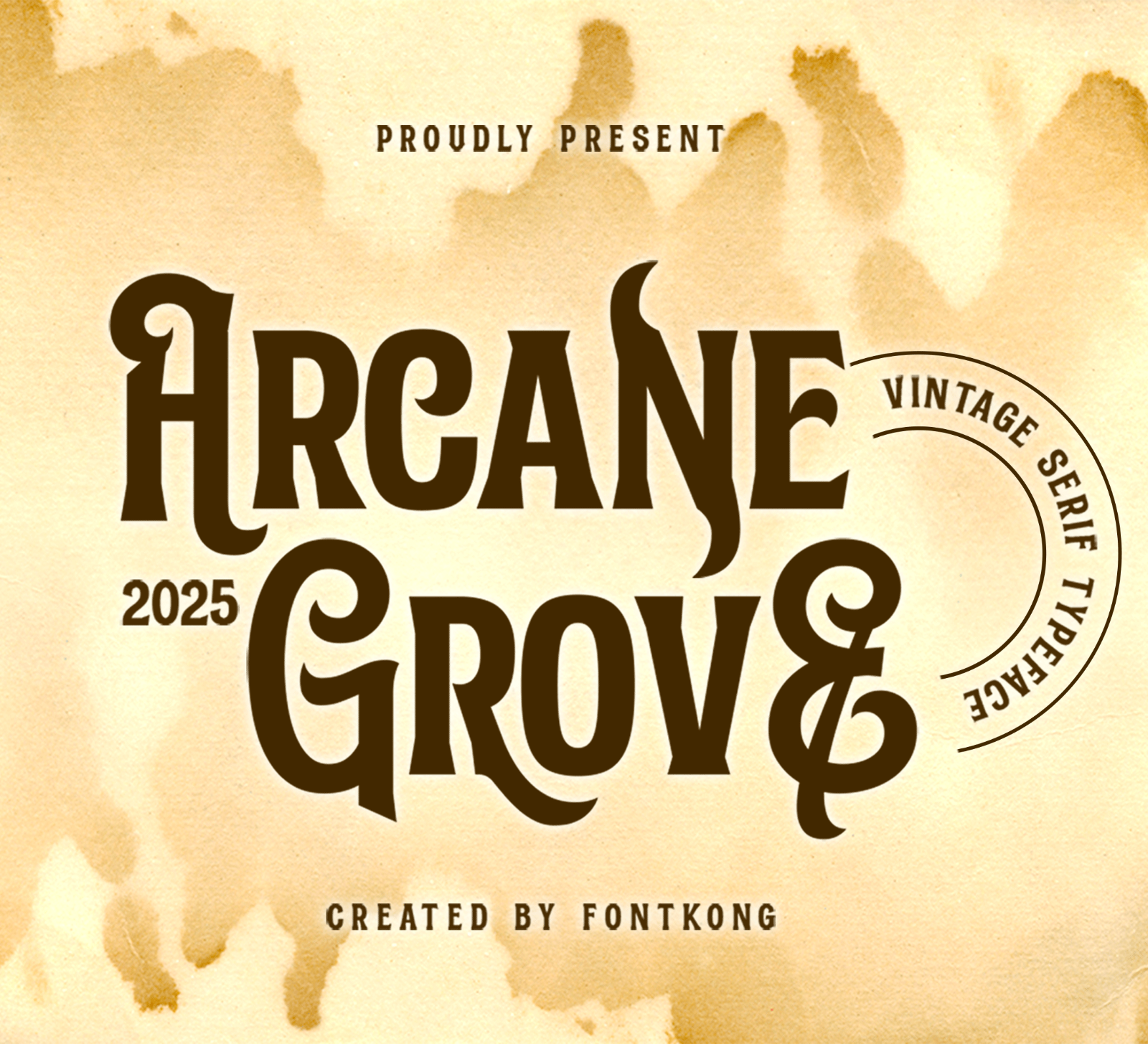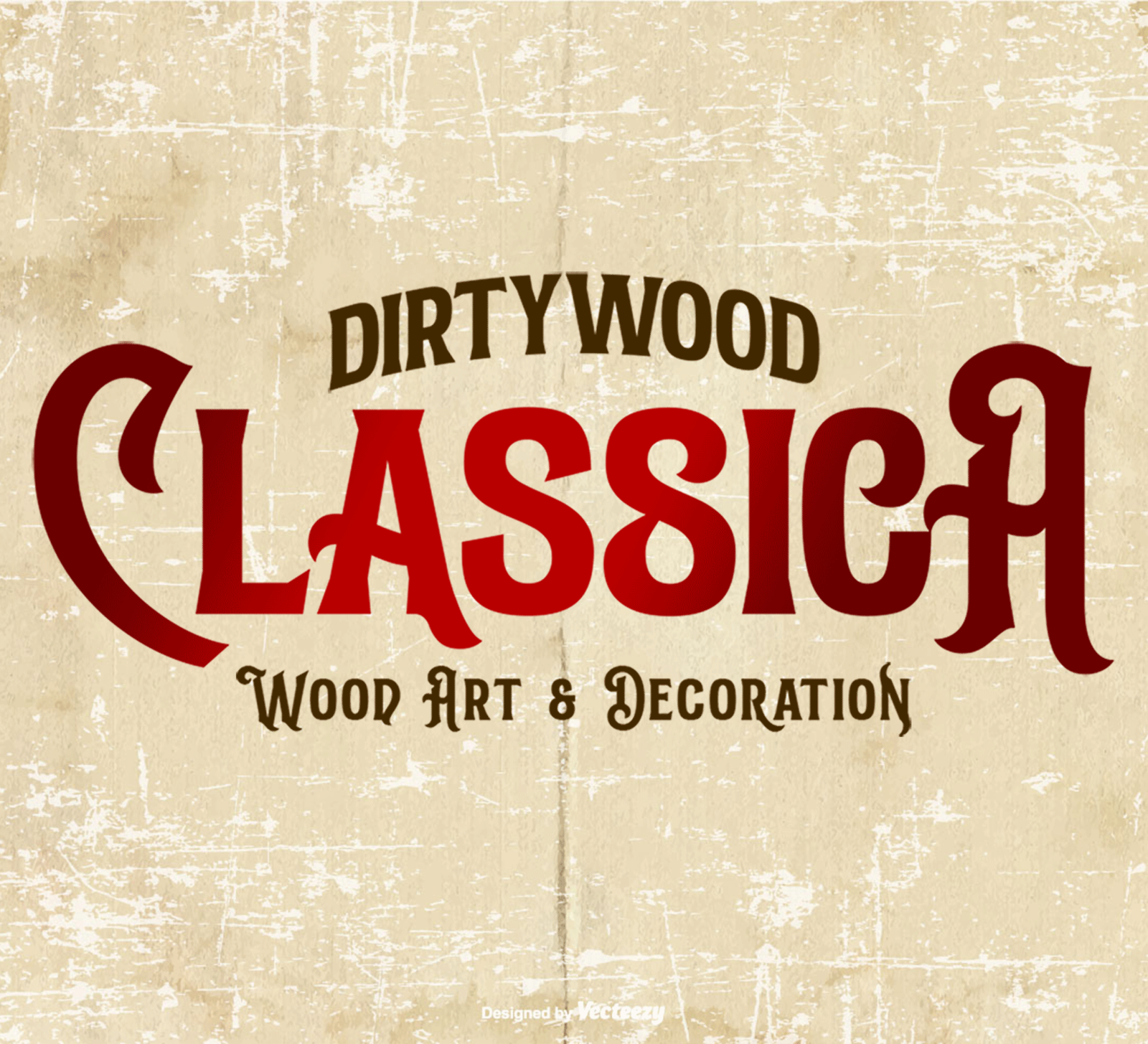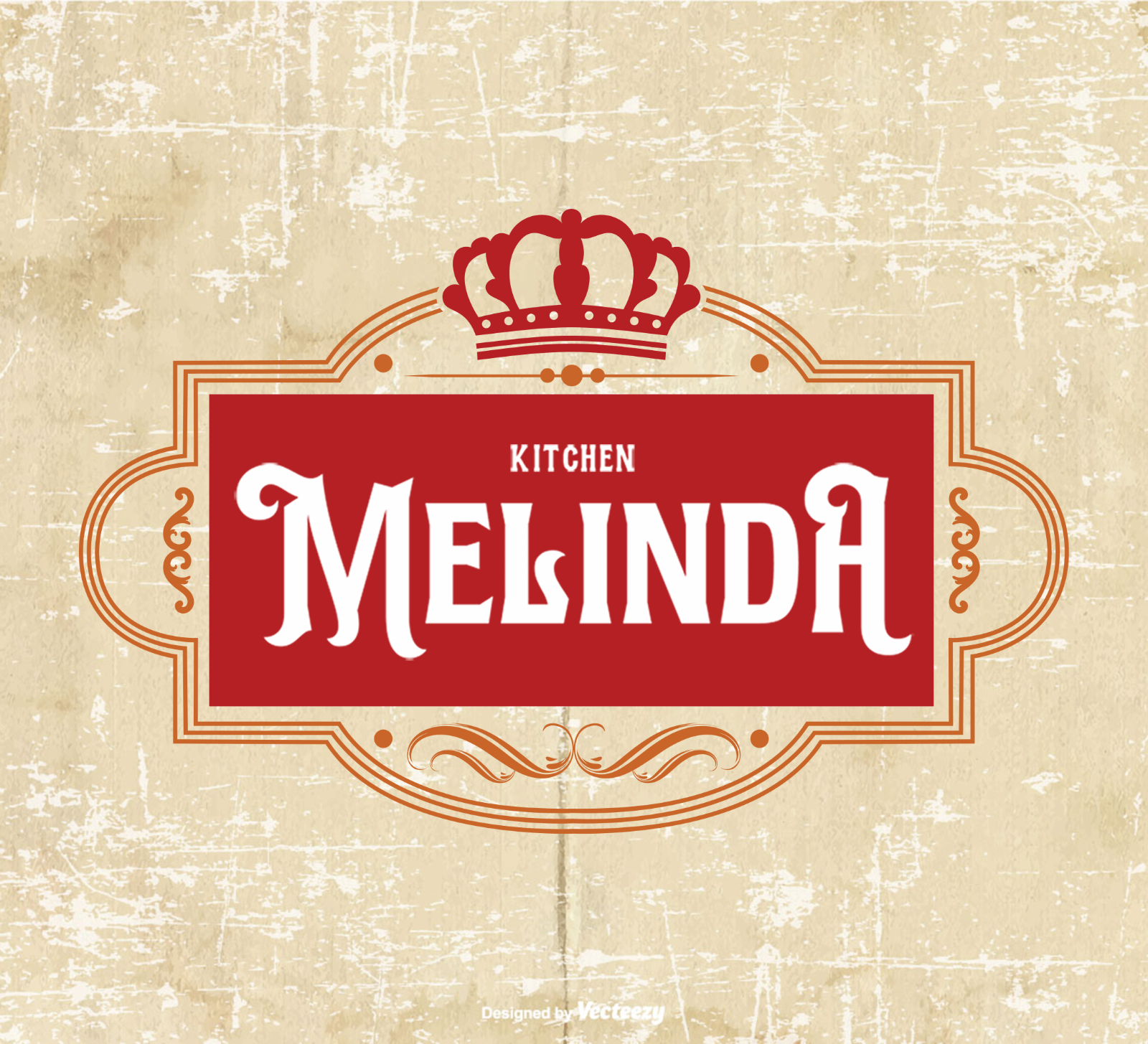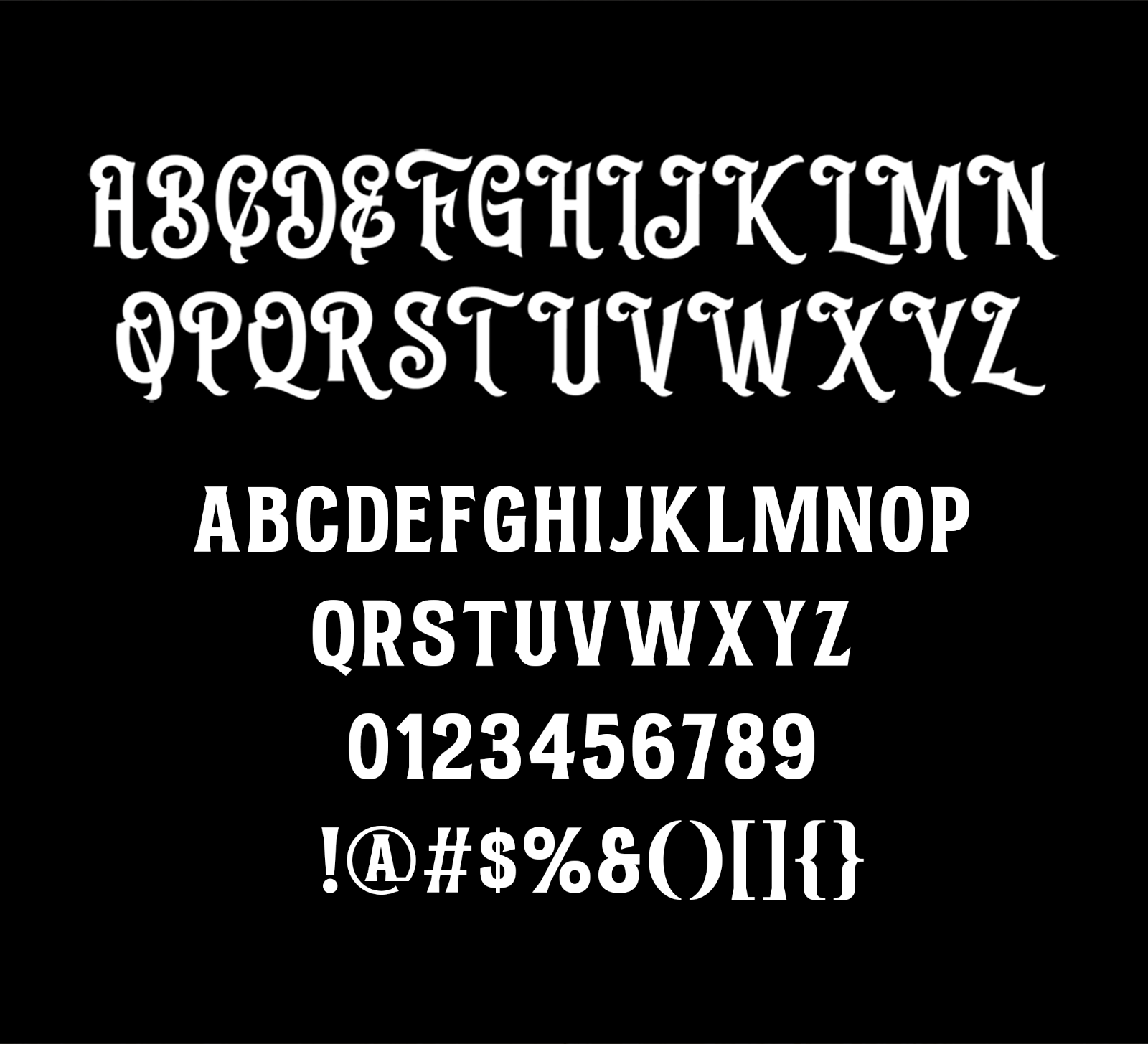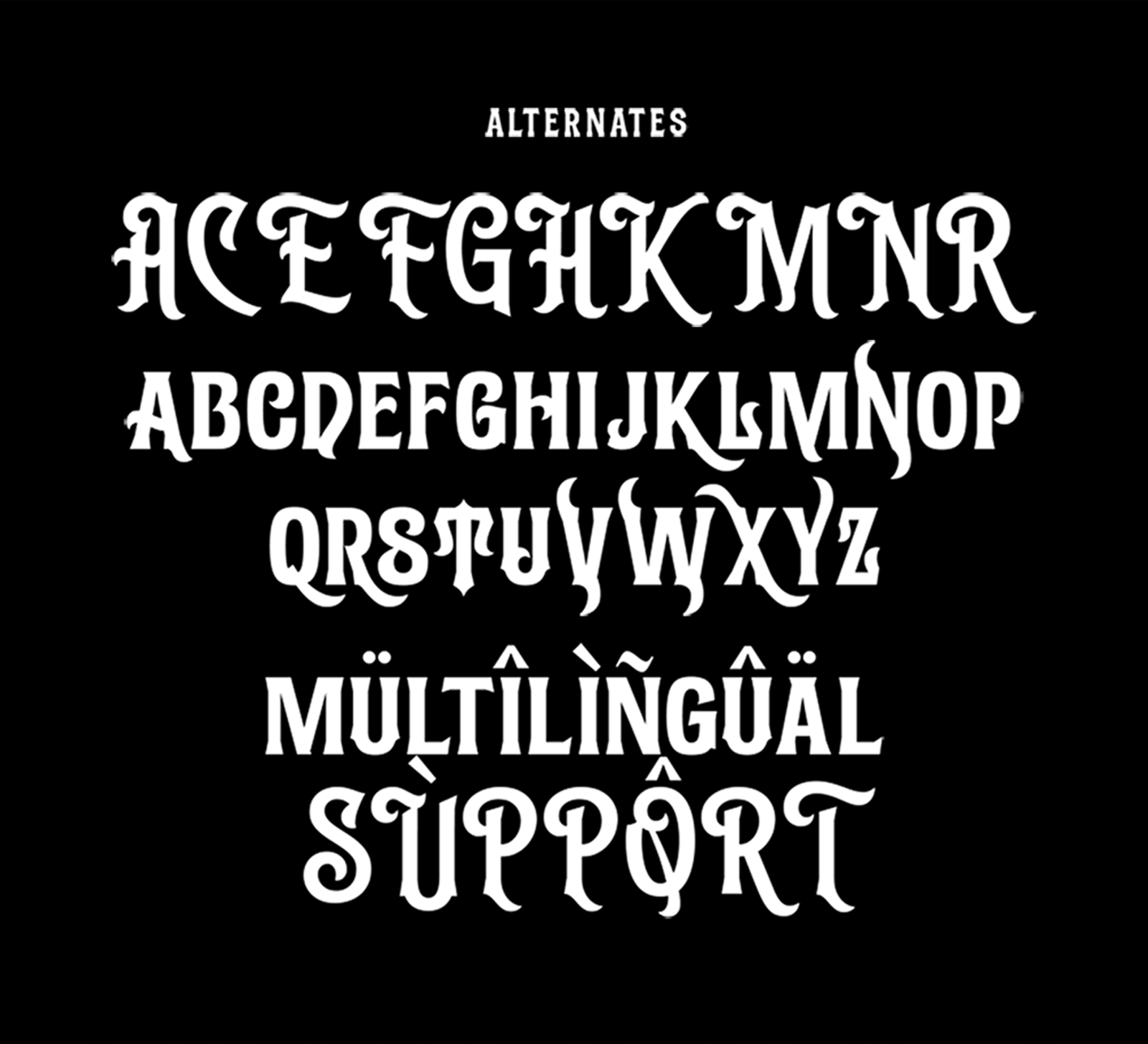
Arcane Grove is a modern vintage serif font with bold letterforms, distinctive curves, and a timeless retro character. Its classic yet contemporary style makes it perfect for eye-catching branding and display designs.
• Vintage branding
• Logos
• Business cards
• Blog headers
• Quotes
• Editorial titles
• Packaging
• Creative typography